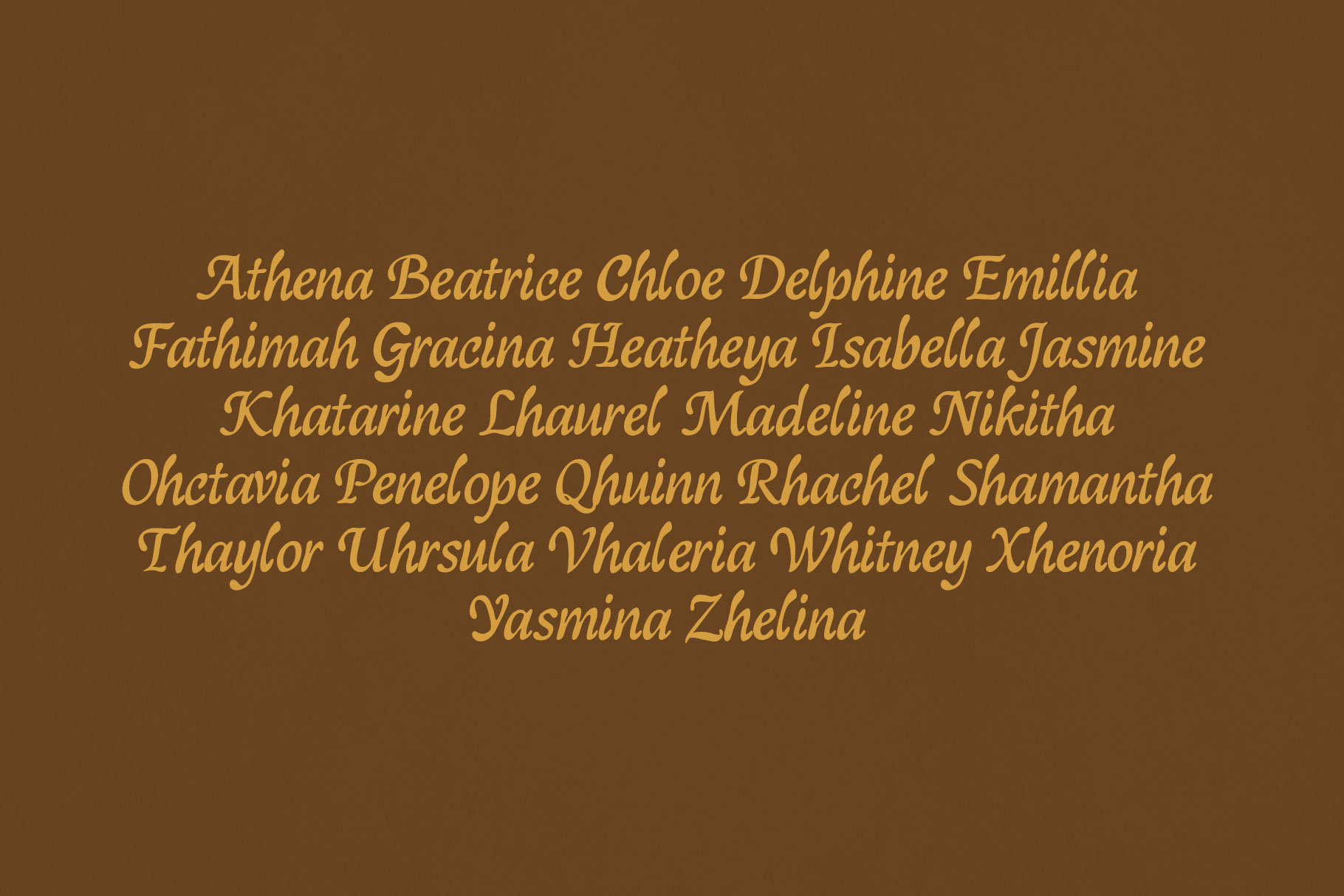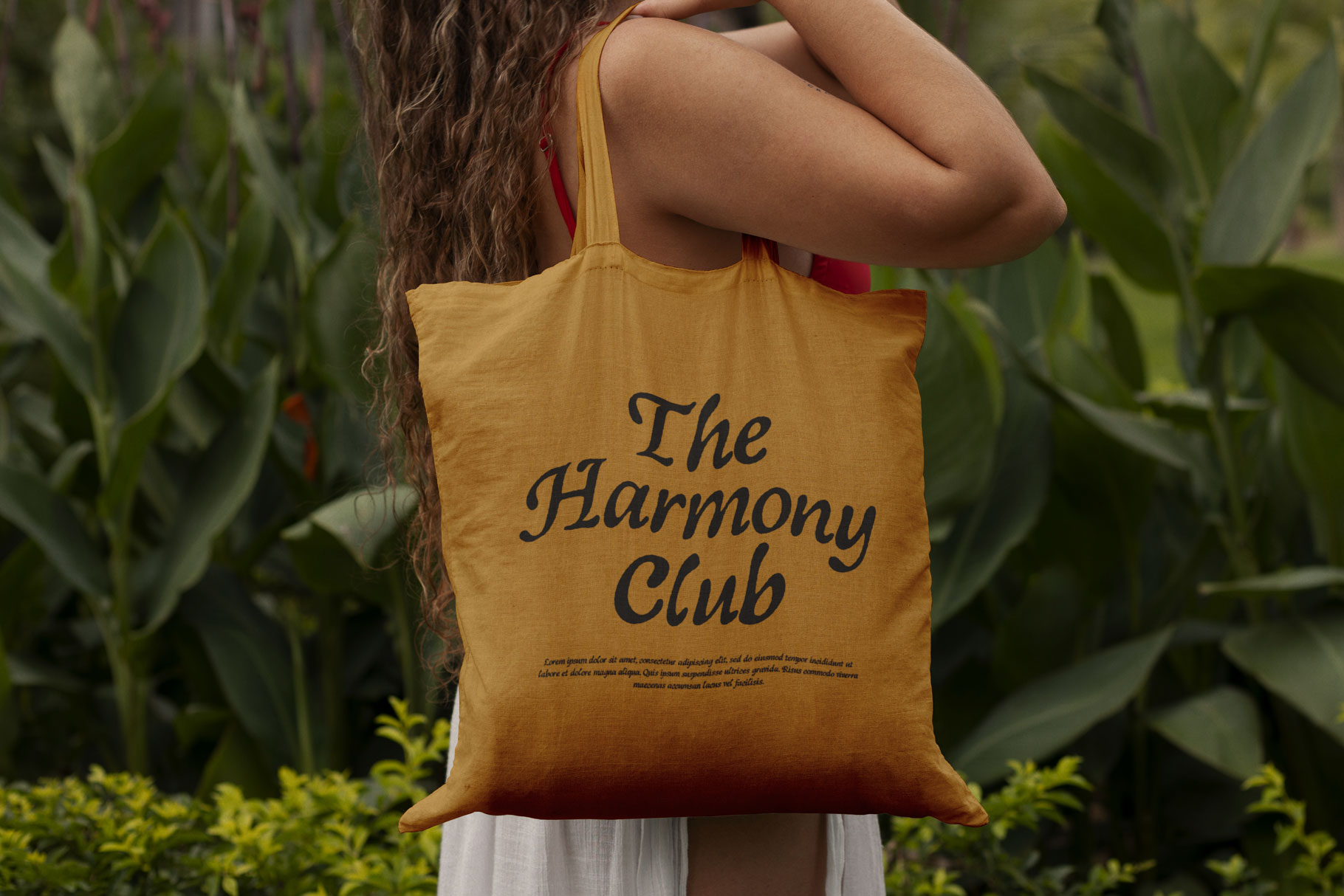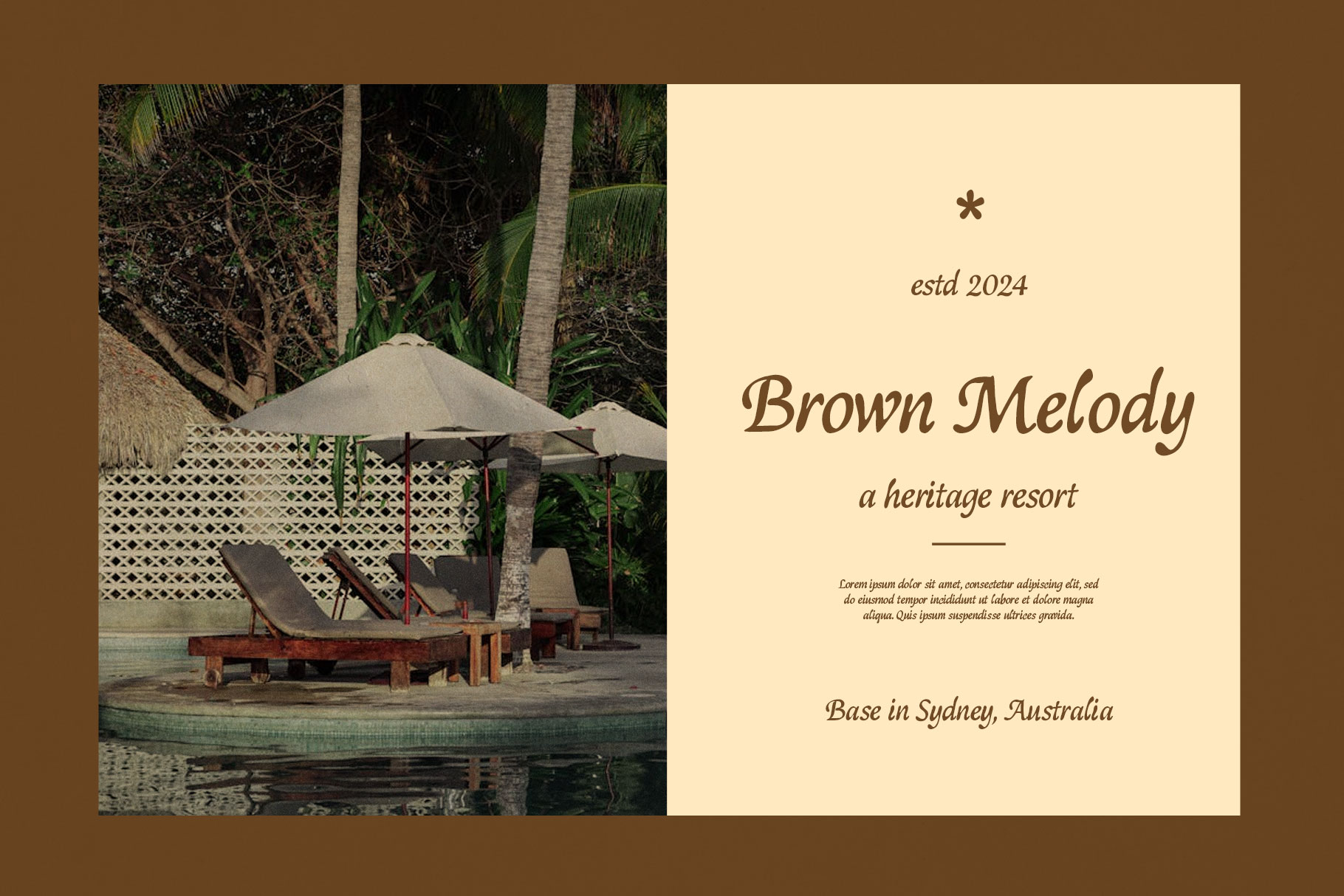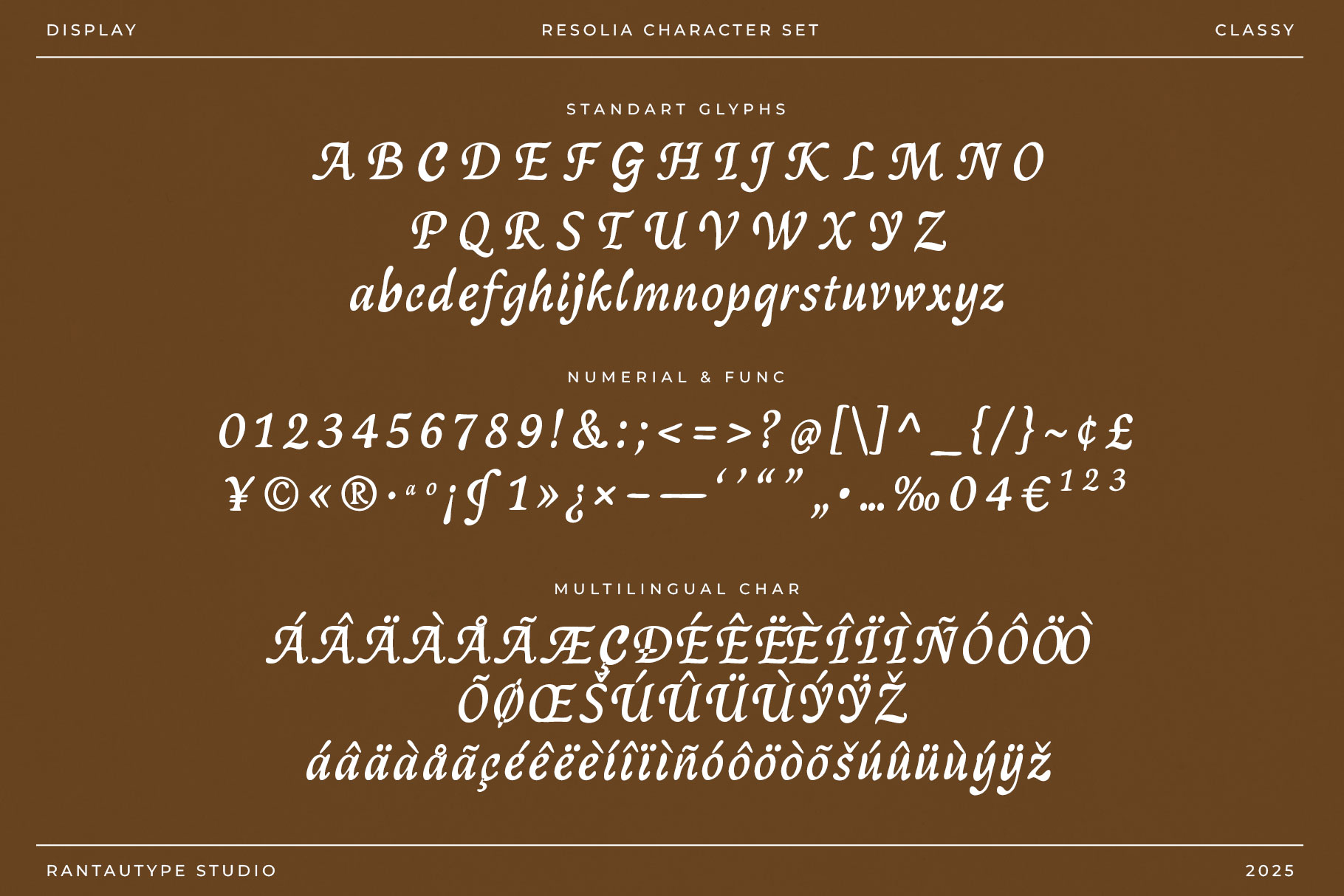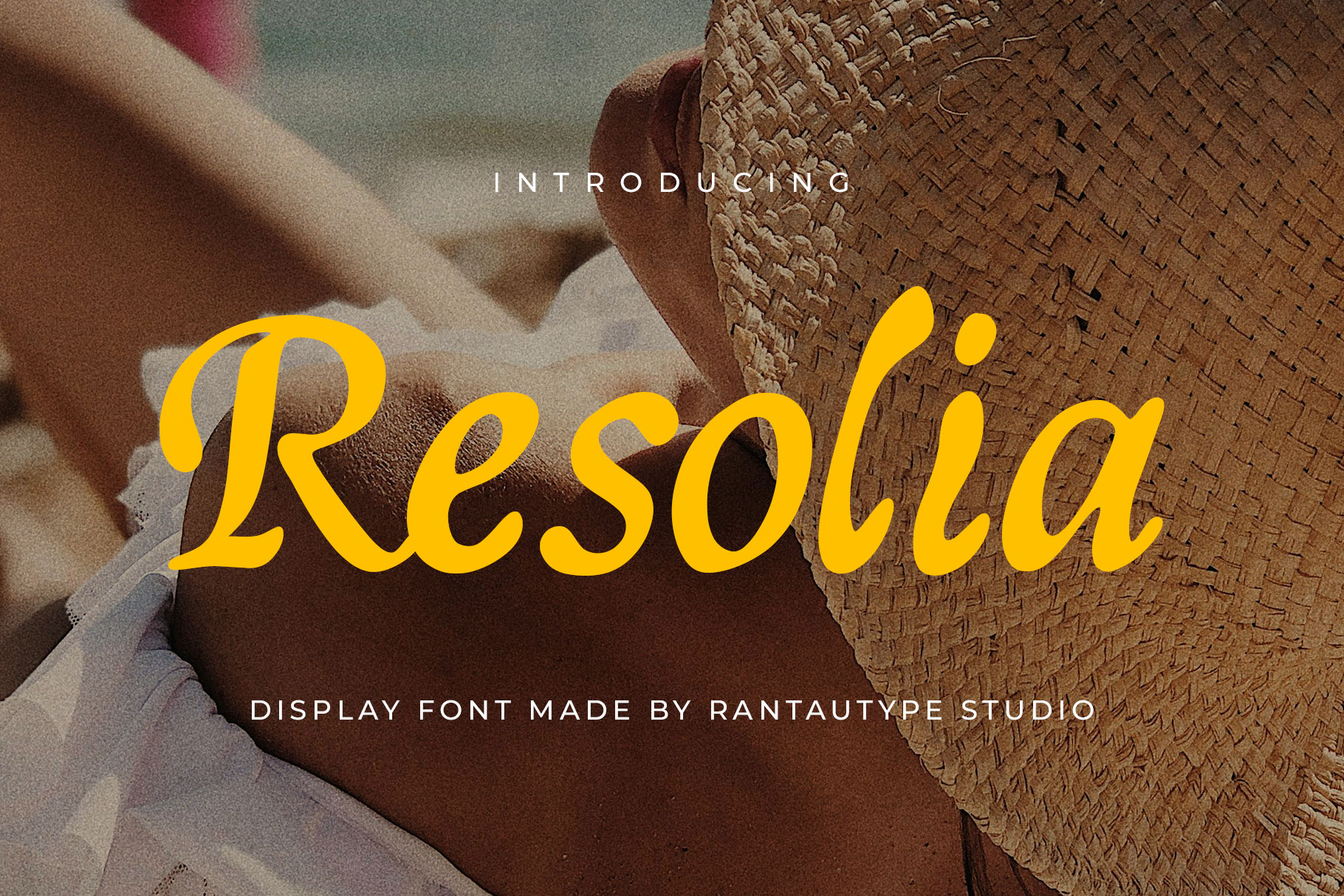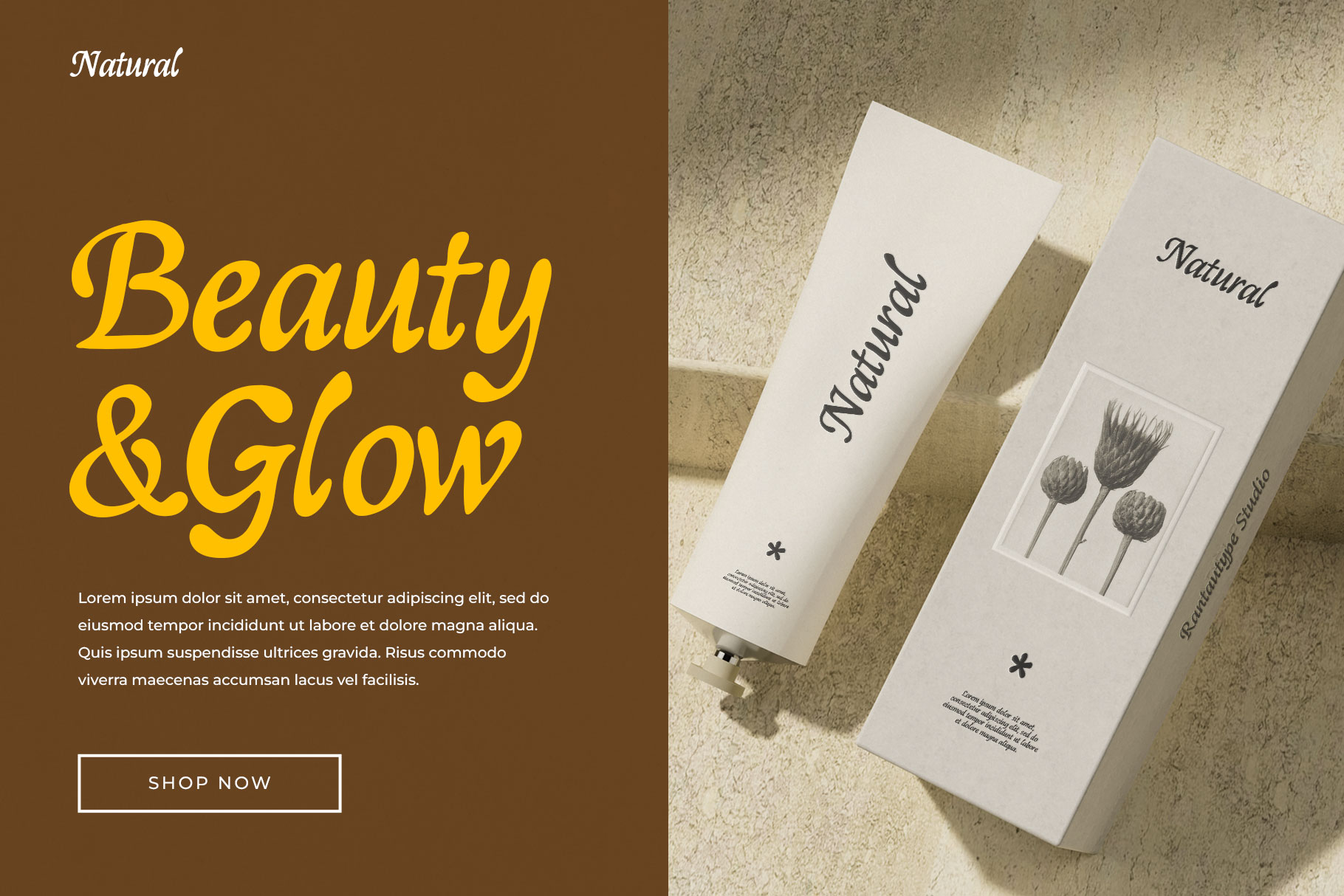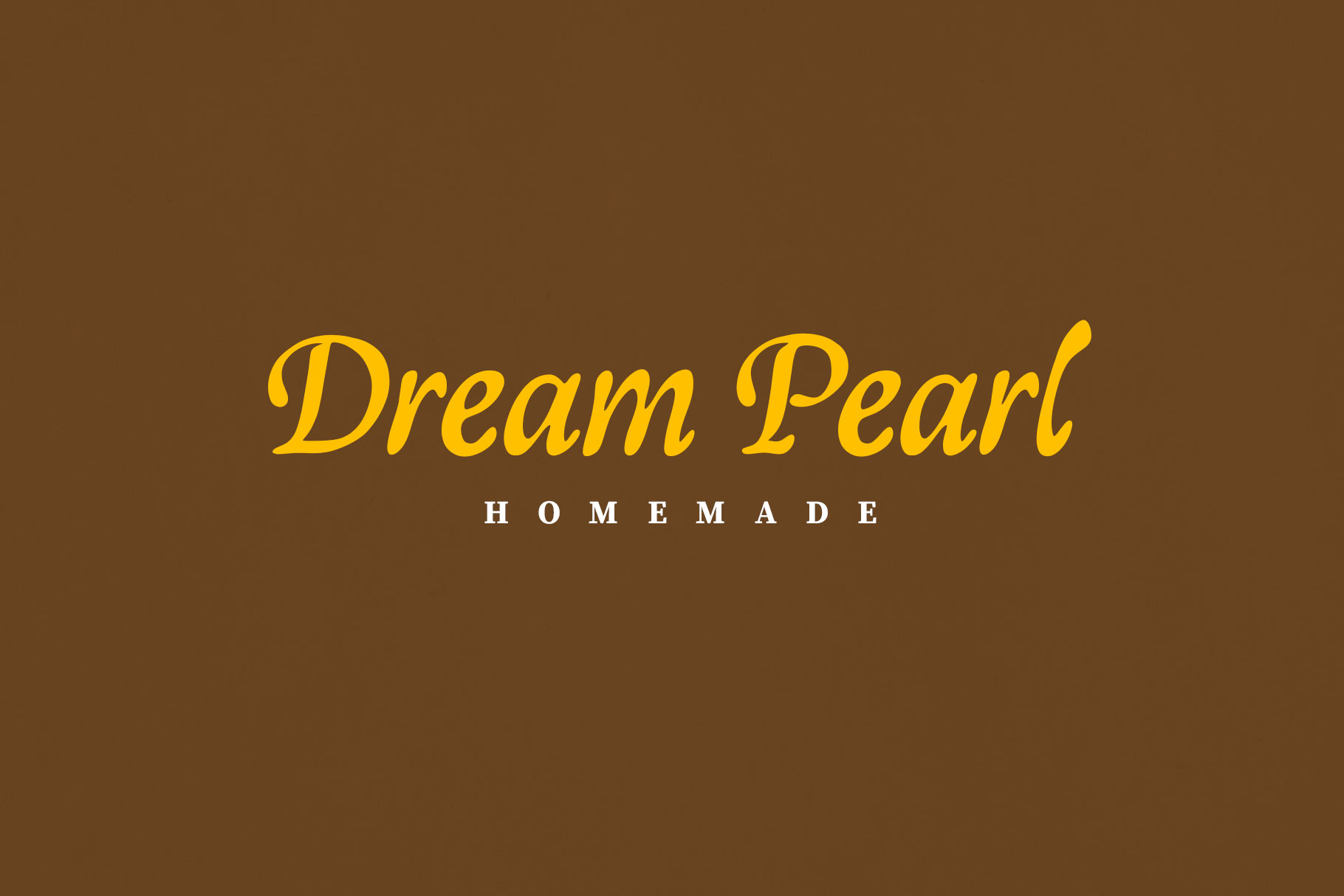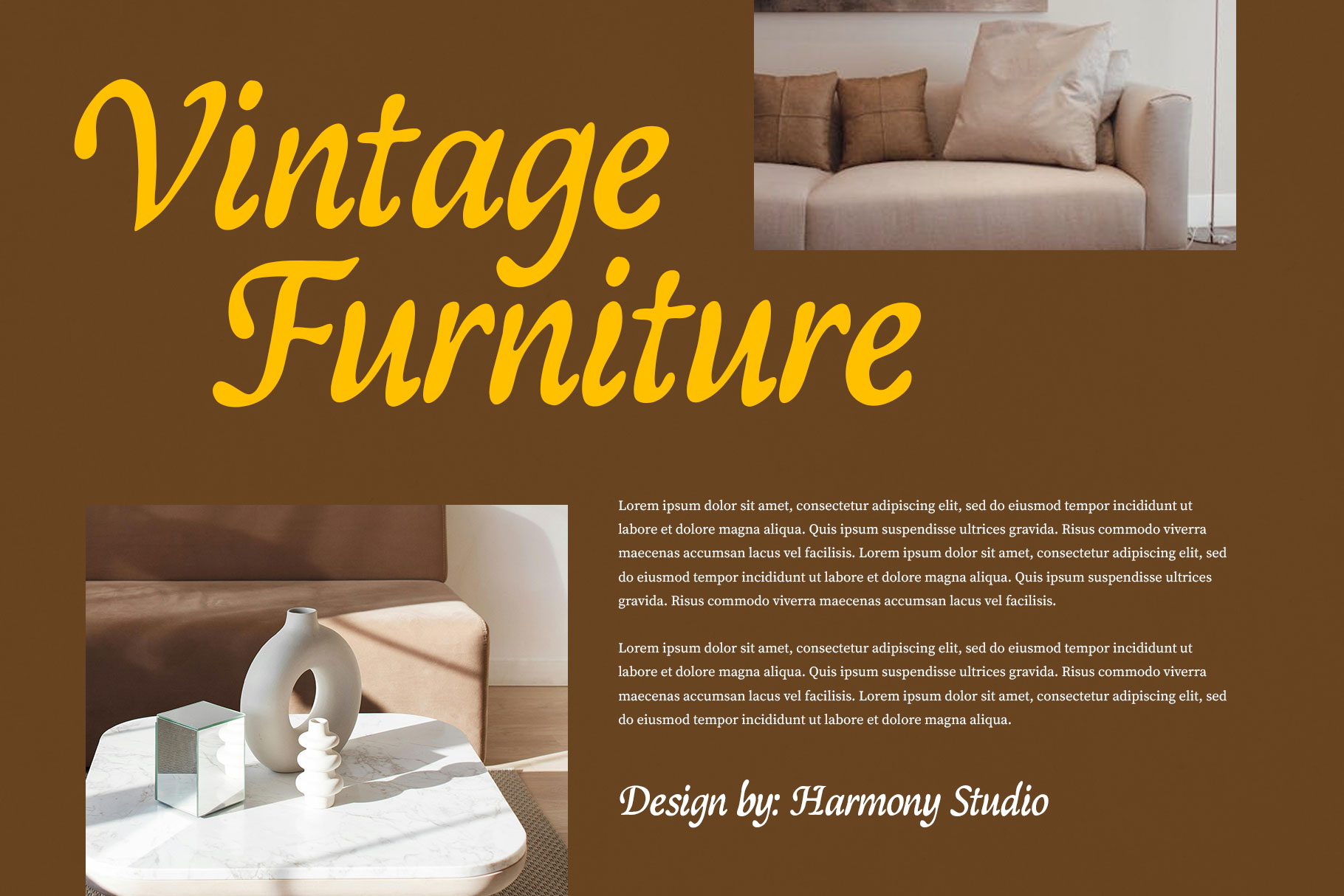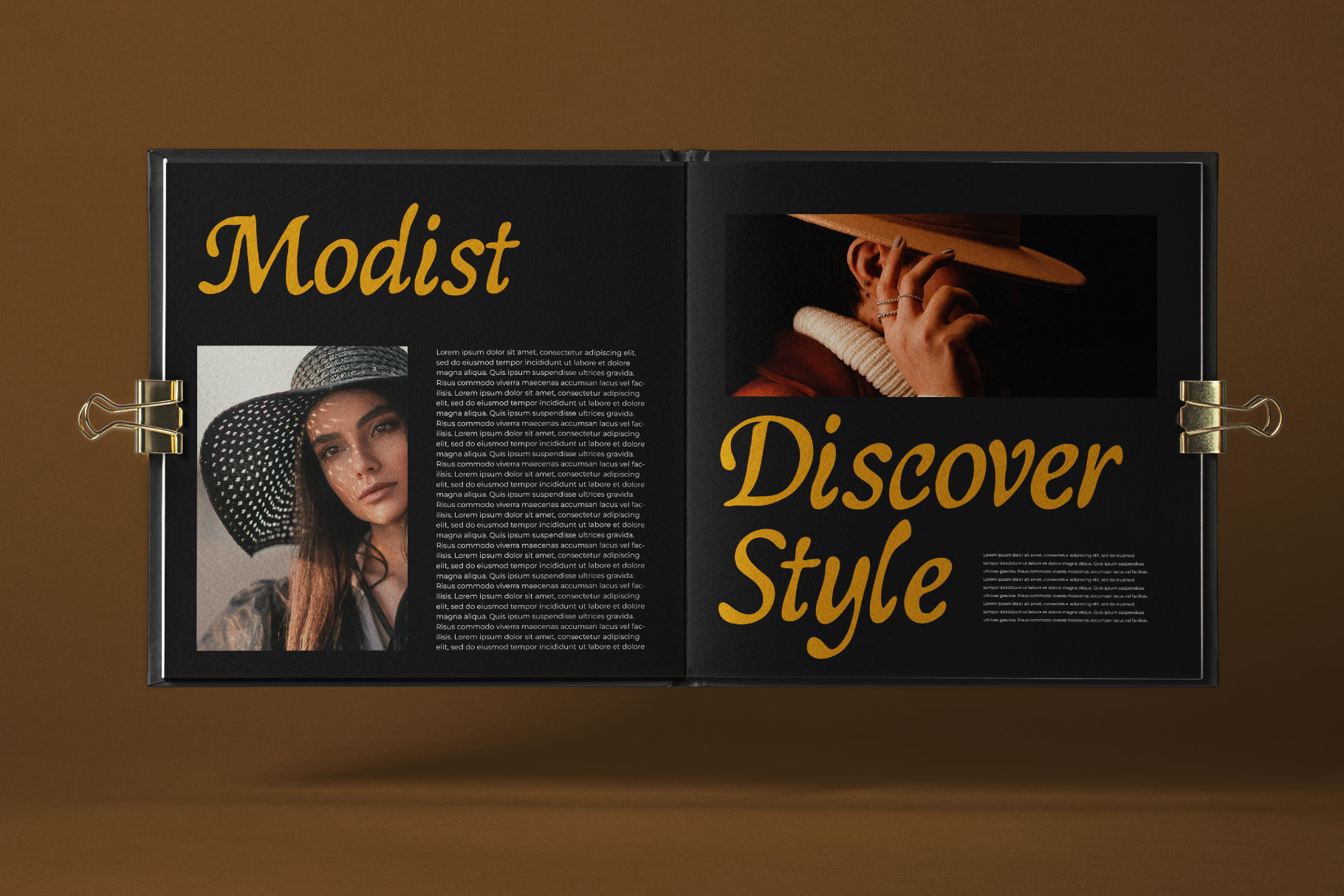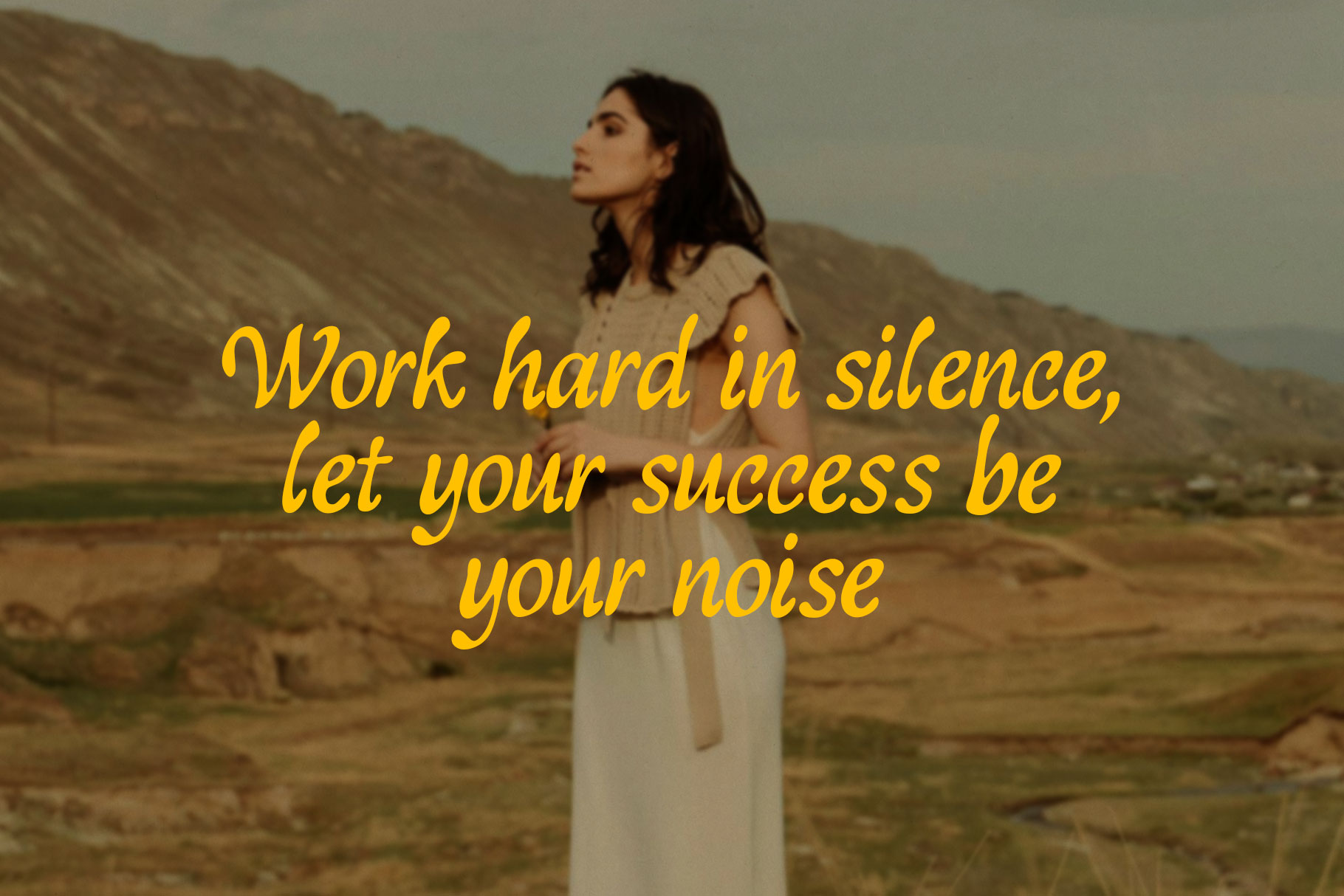
Resolia Classy Display Font
Resolia is display font made by rantautype studio with classy look. Resolia is a perfectly choice for any creative endeavor, creating, modern, lifestyle design such as logotype, title, cover, branding, invitations, wedding designs, display and magazine, social media posts, advertisements, printed quotes, product packaging, corporate brand, product designs, labels, photography, watermarks, special events and any other project with elegant touch.